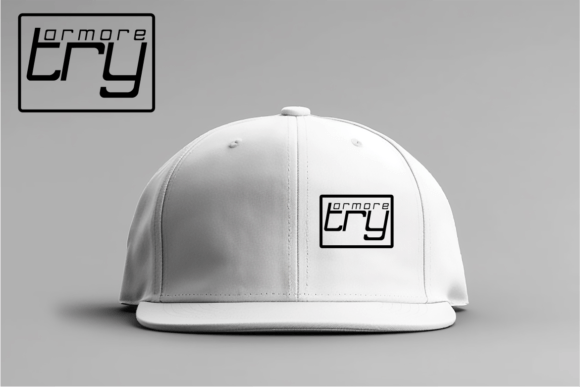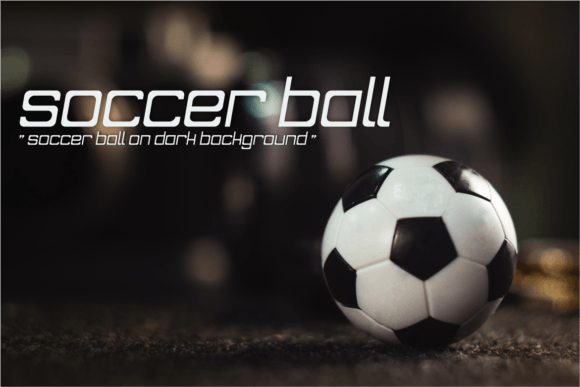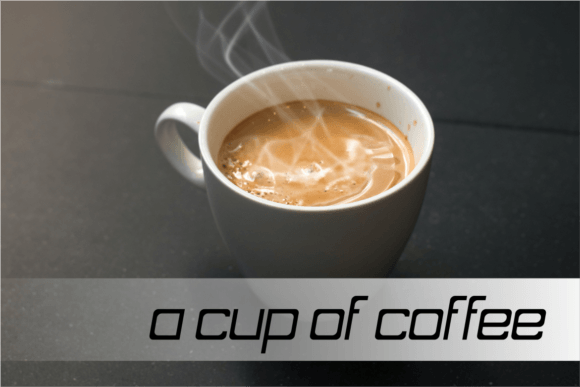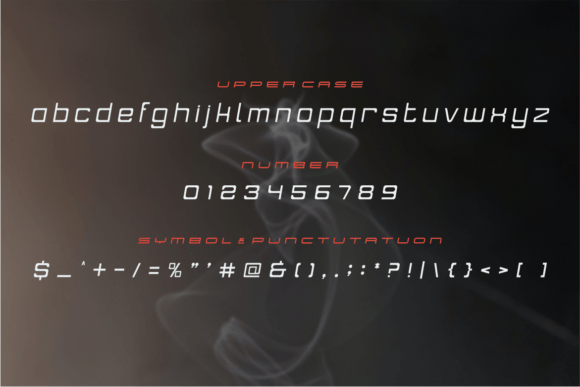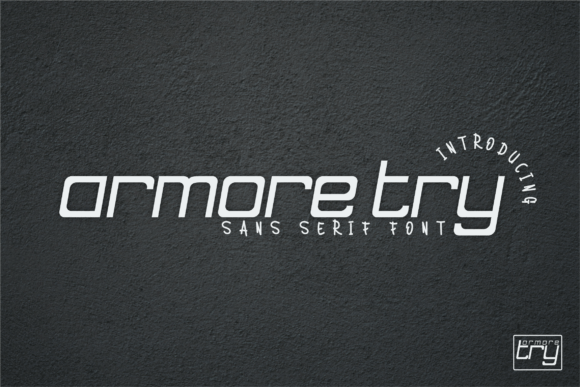
Introducing Armore Try Font: A Modern Sans Serif for Creative Projects
In the world of typography, fonts play a crucial role in conveying messages, evoking emotions, and creating visual identities. For designers, crafters, and DIY enthusiasts, finding the perfect font can be a daunting task. That’s why we’re excited to introduce Armore Try Font, a modern sans serif font engineered from a basic template to cater to creative projects. In this article, we’ll explore the features, benefits, and uses of Armore Try Font, and why it’s an excellent addition to your typography arsenal.
The Evolution of Armore Try Font
Armore Try Font was born from a basic sans serif font, which was then transformed into a more modern style. The design process involved refining and reinterpreting the classic sans serif template to create a unique and contemporary look. The result is a clean, crisp, and versatile font that’s perfect for a wide range of applications.
Key Features of Armore Try Font
- Modern sans serif design: Armore Try Font boasts a sleek and modern sans serif design, making it ideal for projects that require a fresh and contemporary look.
- Lowercase lettering: What sets Armore Try Font apart is its focus on lowercase letters. The designers accentuated the font with lowercase letters, which adds a touch of uniqueness and playfulness.
- Versatility: Armore Try Font is designed to be versatile, making it suitable for various creative projects, from screen printing to food and sports branding.
Use Cases for Armore Try Font
Armore Try Font is an excellent choice for designers and crafters working on various projects, including:
- Screen printing: The font’s bold and clean design makes it perfect for screen printing applications, such as t-shirts, posters, and stickers.
- Sports branding: Armore Try Font’s modern and energetic feel makes it an excellent fit for sports-related branding, including team logos, jerseys, and promotional materials.
- Food branding: The font’s clean and crisp design also makes it suitable for food-related branding, such as restaurant menus, food labels, and packaging.
Why Choose Armore Try Font?
With so many fonts available, why choose Armore Try Font? Here are a few reasons:
- Unique design: Armore Try Font’s focus on lowercase letters and modern sans serif design makes it stand out from other fonts.
- Versatility: The font’s versatility ensures it can be used across various projects and applications.
- Ease of use: Armore Try Font is easy to read and works well in both digital and print formats.
Tips for Using Armore Try Font
To get the most out of Armore Try Font, here are some tips:
- Experiment with sizes: Armore Try Font works well in various sizes, from large headings to smaller body text.
- Pair with other fonts: Try pairing Armore Try Font with other fonts to create a unique and visually appealing typography combination.
- Use it consistently: Consistency is key when using a font. Use Armore Try Font across your project to create a cohesive look.
Armore Try Font is an excellent addition to any designer’s or crafter’s typography arsenal. Its modern sans serif design, focus on lowercase letters, and versatility make it perfect for a wide range of creative projects. Whether you’re working on screen printing, sports branding, or food packaging, Armore Try Font is a great choice. So why not give it a try and see how it can elevate your designs?